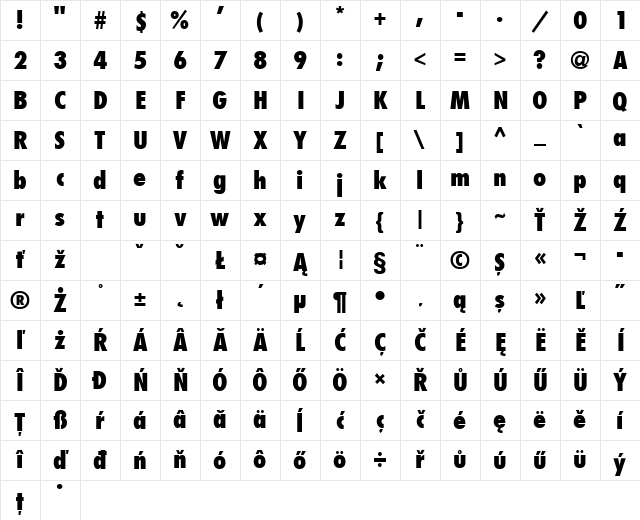
FujiyamaExtraBold Normal
FujiyamaExtraBold Family
Design Context for FujiyamaExtraBold
FujiyamaExtraBold is a composed and adaptable typeface that performs quietly and consistently across a wide range of design contexts. Its bold stroke weight gives it real presence on the page.